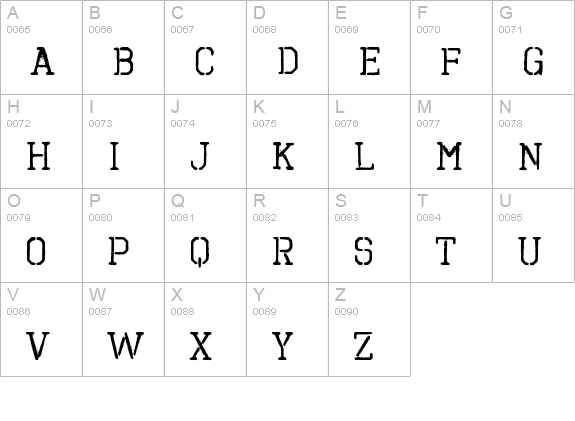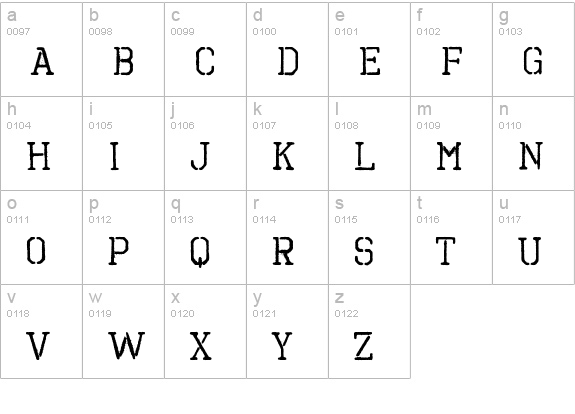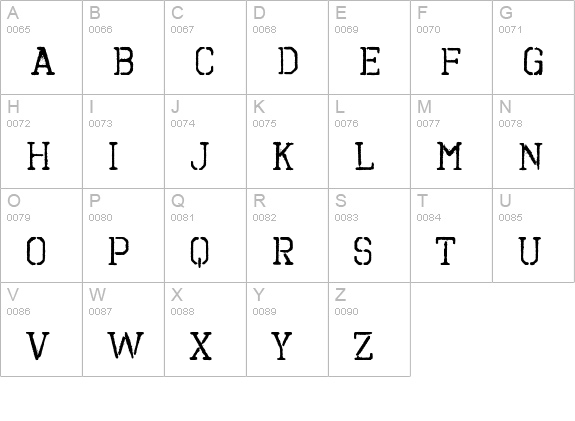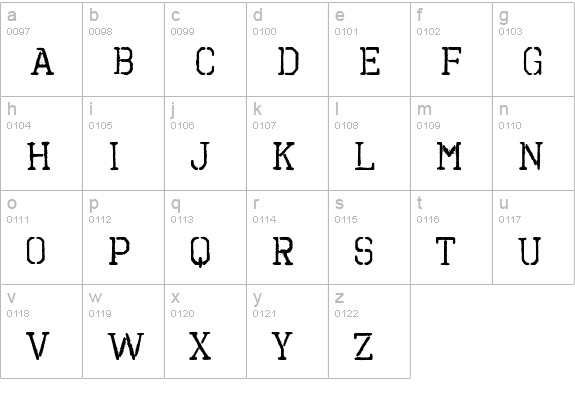
Octin Spraypaint B Rg Font Details
Octin Spraypaint B Rg is a bold and edgy font that exudes a strong urban vibe. Its rugged and grungy appearance makes it perfect for projects that require a raw and rebellious aesthetic. The sharp edges and distressed texture of this font give it a modern and dynamic feel, ideal for street art, posters, album covers, and more. What sets Octin Spraypaint B Rg apart is that it is not only striking in its design, but it is also free to download. Yes, you heard that right - this unique and eye-catching font is freely available at FontsMarket.com. So, whether you're a designer looking to add a dose of attitude to your work or an artist seeking a font that speaks volumes, Octin Spraypaint B Rg is the perfect choice. Download it today and unleash your creativity!